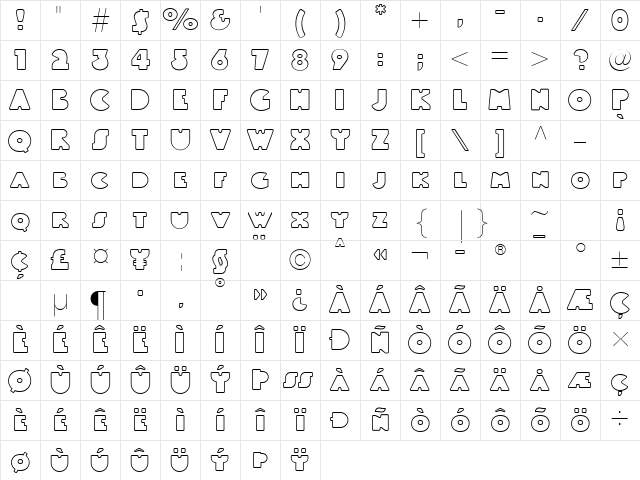
Complete LTBlackWhiteOutline Black glyph index. Displaying only characters natively supported by LTBlackWhiteOutline Black font.
LTBlackWhiteOutline is built around its visual character rather than neutral utility - its distinctive forms are designed to make an impression at display sizes.
Font Pairing: Pair with a clean neutral sans-serif for body copy to let LTBlackWhiteOutline's character lead without overwhelming the composition.
Pro Tip: Use LTBlackWhiteOutline exclusively at display sizes - it was designed to be seen, not read at length. Let a neutral companion handle body copy.